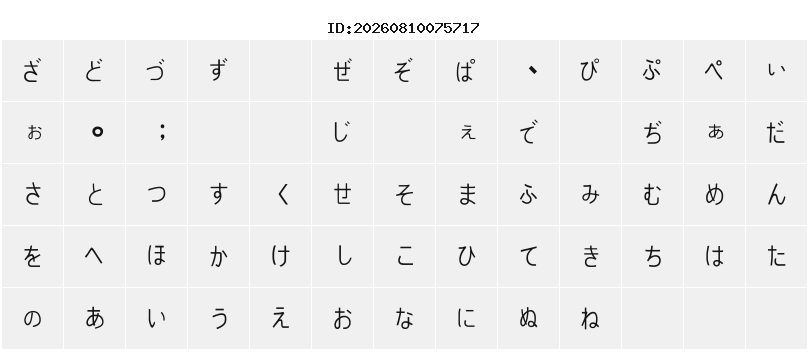
PJ Hiragana Preview
• Font Name: PJ Hiragana
• Full Font Name: PJ Hiragana
PJ Hiragana.ttf is a modern, elegant sans-serif font designed for ultimate readability and visual harmony. Perfect for branding, headlines, web design, and print materials.